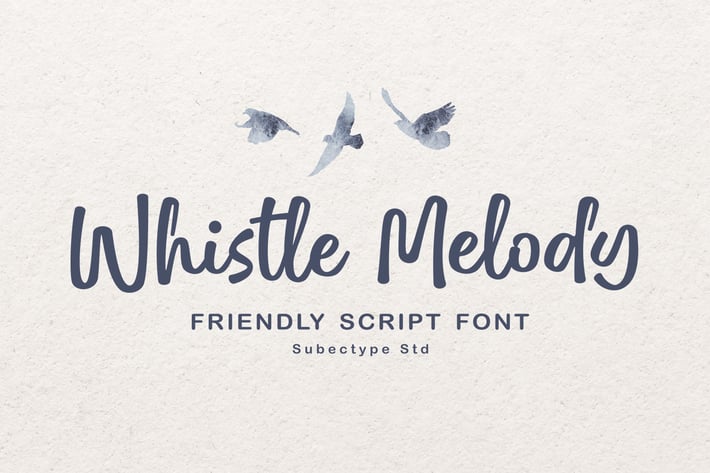
Whistle Melody - Fun Handwritten Font
Whistle Melody is an fun handwritten script font. This font is Perfect for posters, Logotype, album cover, signature, invitation and more. Elevate your designs with Antaresia font and make a powerful statement with typography that speaks the language of the elegant signature style.
Ligatures